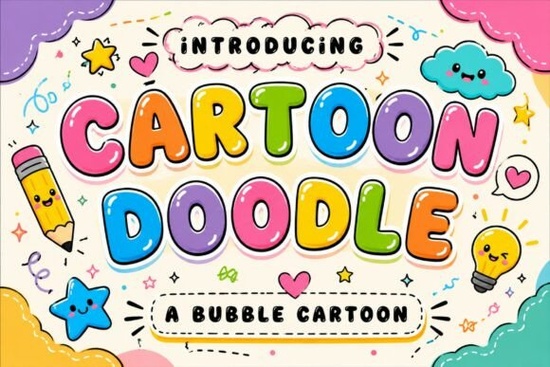
If you need a typeface that looks like it was drawn by hand with a big marker and a smile, Cartoon Doodle Font is worth a close look. It's a bubble-style display font built around rounded letterforms, thick outlines, and a playful cartoon vibe that works especially well for kids' projects, birthday invitations, stickers, and fun social media graphics. For anyone working on family-friendly designs or print-on-demand products aimed at younger audiences, this font covers a lot of ground without feeling generic.
What Makes Cartoon Doodle Font Different From Other Playful Typefaces?
Plenty of display fonts aim for a "fun" look, but Cartoon Doodle stands out because its letter shapes actually feel hand-drawn rather than mechanically rounded. The outlines are bold enough to read at small sizes, which matters when you're designing stickers or thumbnail images. At the same time, the characters have enough personality that they don't look sterile or over-produced.
Compared to something like Twinkle Candy, which leans more toward a sweet, candy-inspired style, Cartoon Doodle feels broader in its appeal. It works for school materials, toy packaging, and classroom posters without locking you into a single aesthetic. Think of it as a dependable all-rounder for cheerful, kid-friendly typography.
Where Does This Font Work Best?
Based on the font's character design and weight, here are the types of projects where Cartoon Doodle really fits:
- Birthday invitations and party supplies The rounded, bouncy letters set a playful tone right away.
- Kids' merchandise and toy packaging Bold outlines stay readable on physical products.
- YouTube thumbnails and social media posts It grabs attention at small sizes on screens.
- Classroom materials and educational worksheets Friendly letterforms feel approachable for young readers.
- Sticker designs and die-cut projects The thick outlines make cutting and layering simpler.
- Print-on-demand products T-shirts, mugs, and tote bags aimed at children or families.
If your brand voice is warm, energetic, and family-oriented, this typeface can work for logos and branding materials too. It won't suit corporate or luxury contexts, but that's not what it's designed for.
Does It Pair Well With Other Fonts?
Pairing a bold display font with a cleaner body font is always a smart move. Cartoon Doodle's thick, rounded characters sit at the top of a design hierarchy naturally, so you'll want something simpler for longer text blocks.
You could pair it with a straightforward sans-serif for body copy and let the display font handle headlines only. If you want to explore more display options for a project that mixes styles, fonts like Spizelmore or Groovy Style offer different moods you can combine for contrast. For something with a bit more texture, Bold Limited Distressed adds a worn, edgier look that pairs surprisingly well next to smooth bubble letters.
How Does Cartoon Doodle Compare to Similar Playful Fonts?
- Cartoon Doodle Hand-drawn bubble style, versatile across kids' projects and merchandise.
- Magic Bright A colorful, energetic display font that leans into a more vibrant, eye-catching aesthetic.
- Twinkle Candy Font Sweeter and more decorative, great for party invitations and feminine designs.
The right choice depends on your specific project. Cartoon Doodle works when you need something that feels approachable and broadly appealing without being too specific in style.
Is It Easy to Use for Beginners?
Yes. Because the font is bold and well-outlined by default, you don't need to add extra effects like strokes or drop shadows to make it readable. That simplicity is helpful if you're just getting started with design or working in tools like Canva where advanced text effects are limited.